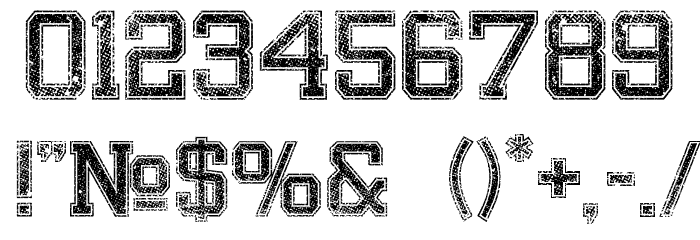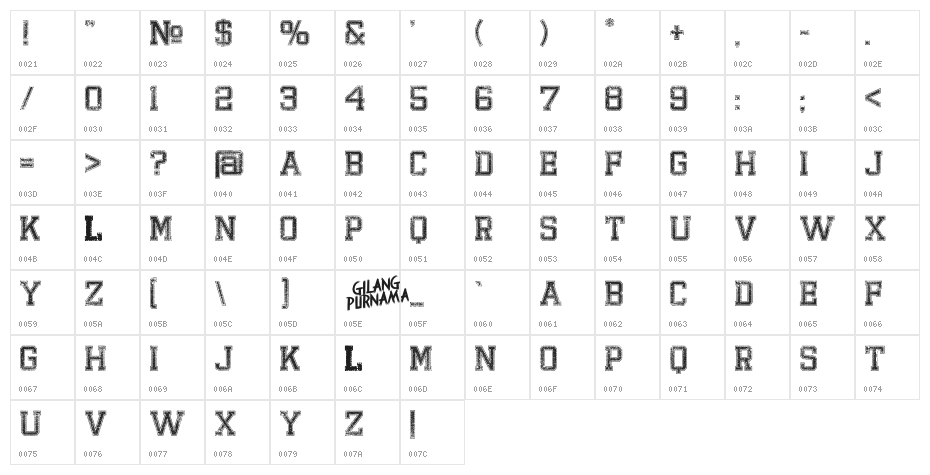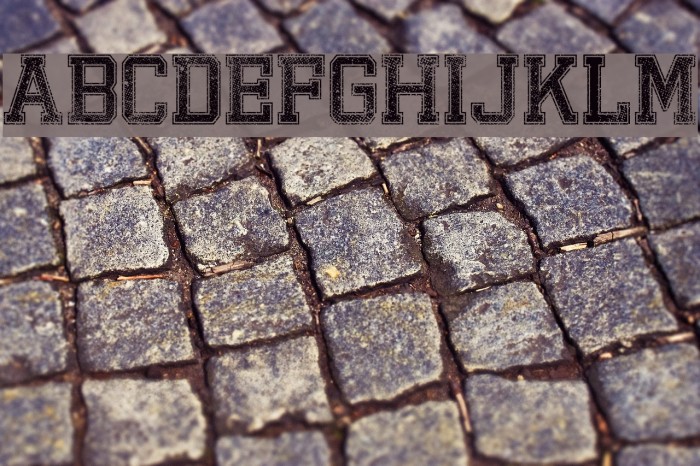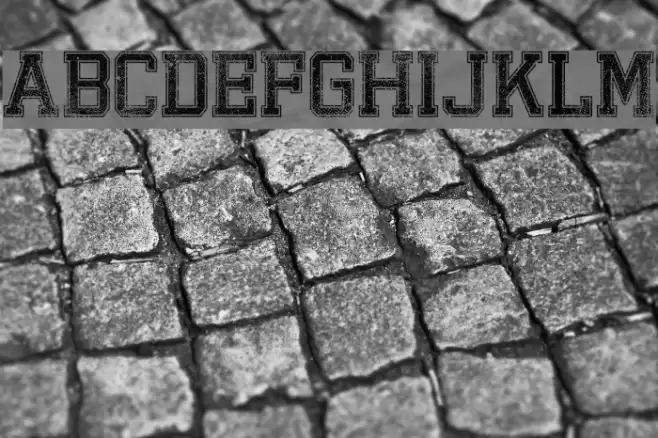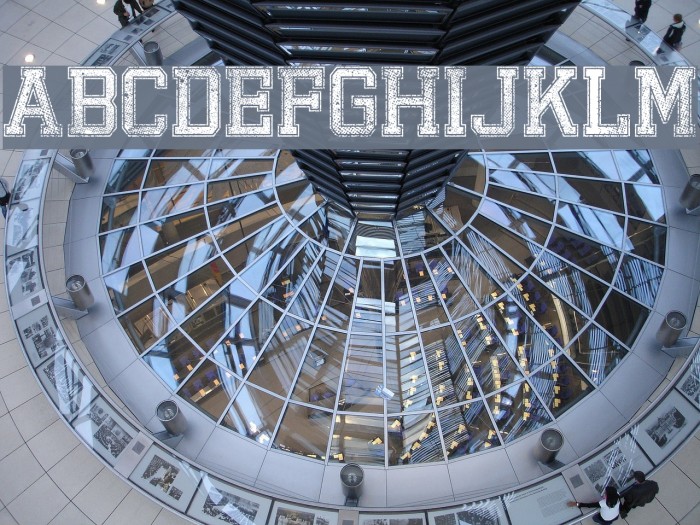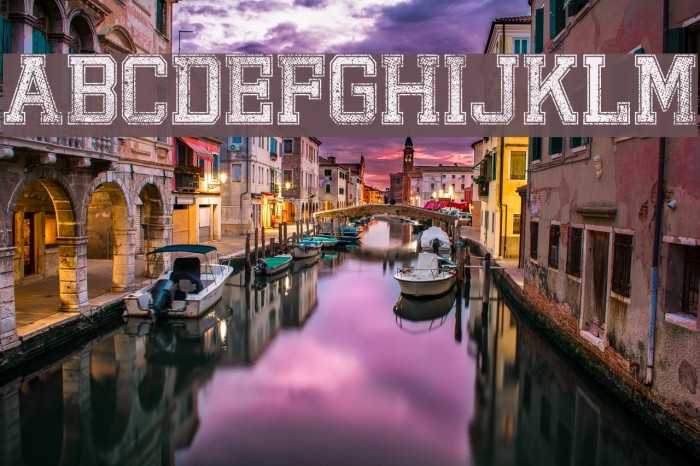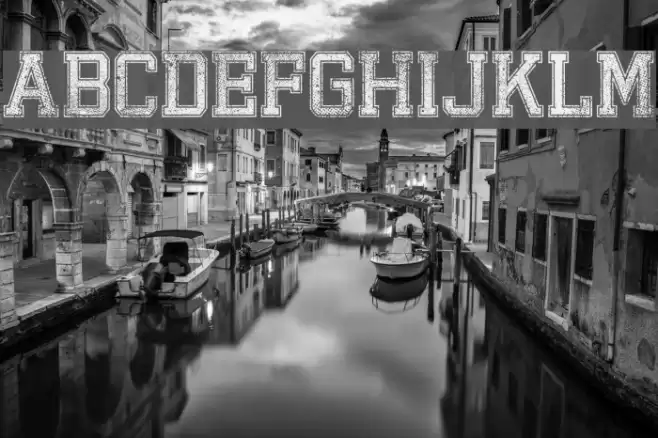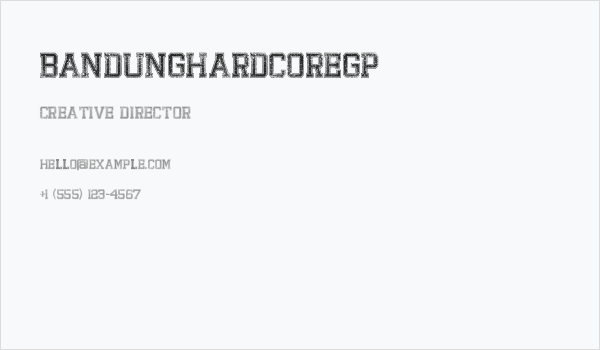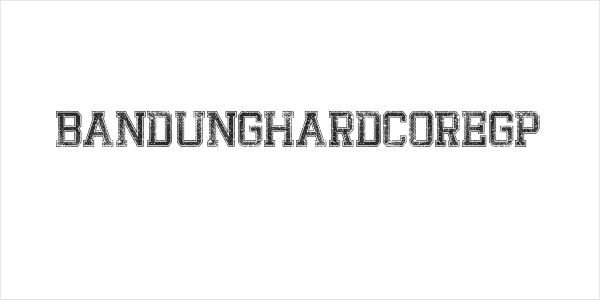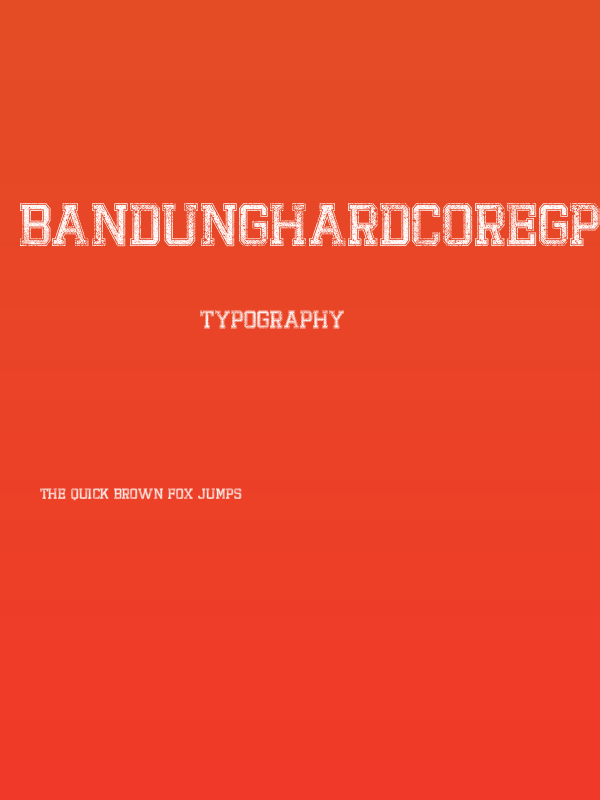
BandungHardcoreGP Font
BandungHardcoreGP Description
This font features a bold, distressed style with a textured appearance that gives it a rugged, vintage feel. The uppercase letters are prominent and impactful, making them ideal for attention-grabbing designs. The numbers and special characters maintain the same distressed aesthetic, ensuring consistency across all text elements. The font's design is reminiscent of old-school, industrial typefaces, with a strong presence and a sense of nostalgia. Its unique texture adds depth and character, making it suitable for projects that require a bold statement.
Overall StyleVintage
Proposed ProjectsIdeal for posters, album covers, branding for rugged or vintage-themed products, and any design that requires a bold, impactful statement.